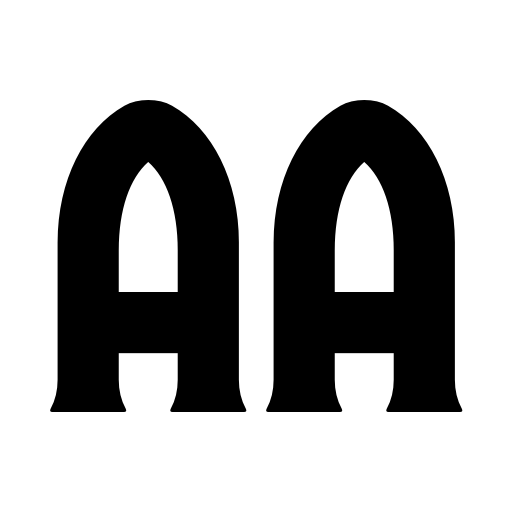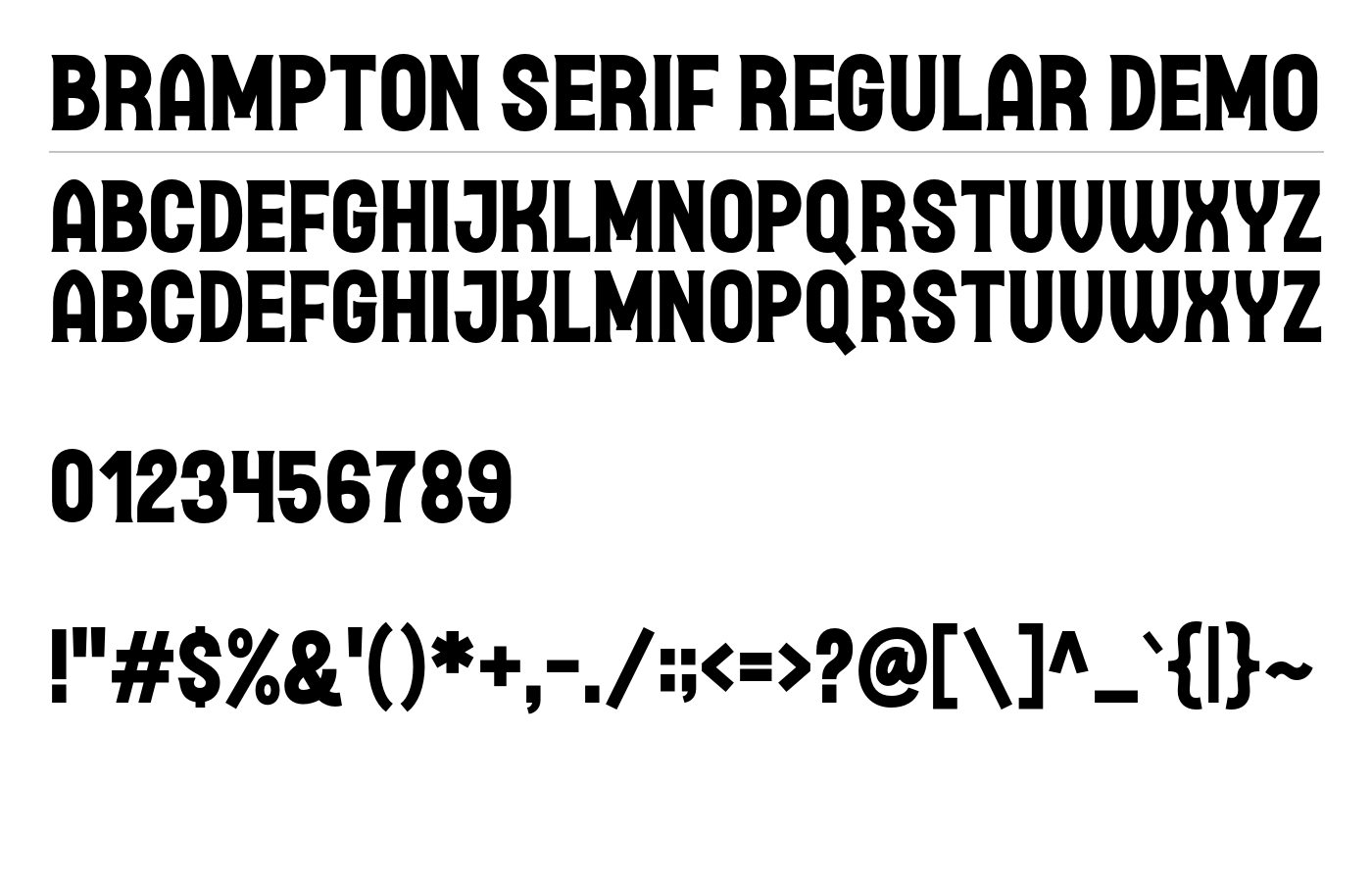
Brampton Serif Regular Demo is a bold, condensed serif typeface with strong geometric shapes and a high x-height, offering excellent readability and impact. Its unique, sharp serifs and stylized letterforms give it a modern yet vintage-inspired personality, making it perfect for headlines, logos, and branding that needs a confident and distinctive look. This font works well for projects in fashion, editorial, and packaging where a bold statement with a touch of character is desired.
Brampton Serif Regular Demo Font
About Brampton Serif Regular Demo Font